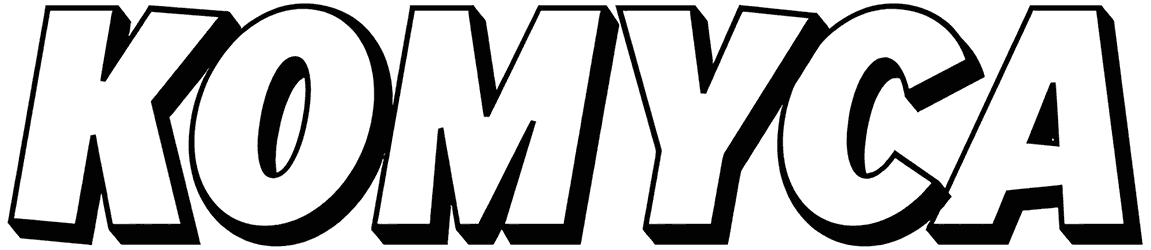
Komyca Font
If you want to have all the attention of the audience to yourself, the bold blocky letters of Komyca can help you with that. It may be categorized as a pop art font, but there’s basically nothing you can’t do with a playful comic font like that.
Some examples of its visual impact are when you choose Komyca to style your texts in comic books, sports event posters, T-shirts, social media announcements about movies and television shows, and things like that.